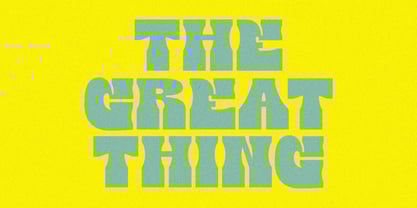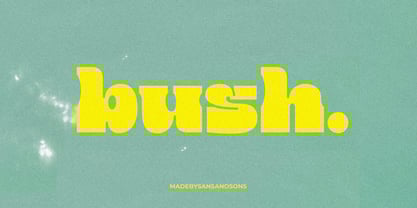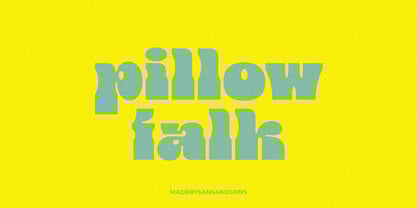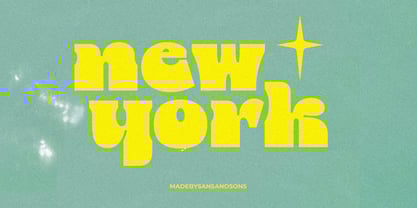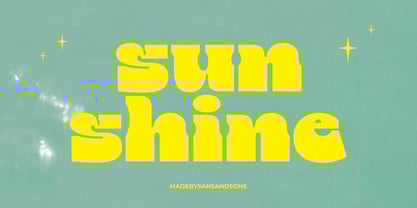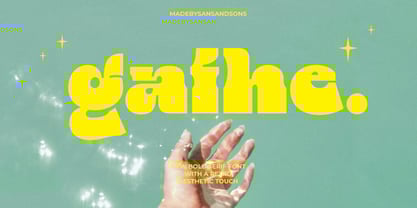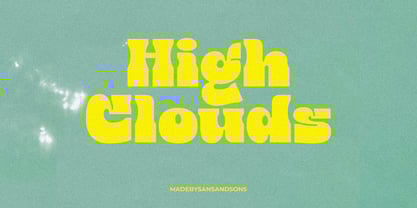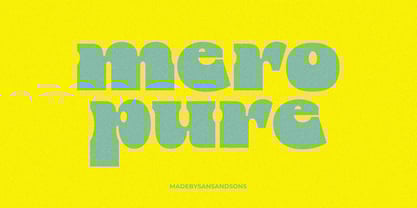
Hello Gathe
by Sans And Sons
The Hello Gathe Font Family was designed by Angga Suwista and published by Sans And Sons. Hello Gathe contains 1 styles. More about this family
Gathe - Made by Sans And Sons
Meet "Gathe" — a bold serif font that mixes retro vibes with modern cool.
With fun curves and standout serifs, "Gathe" adds a unique flair to any project. Perfect for branding, posters, and more, this font brings a timeless, playful touch. Make your designs pop with "Gathe" — where every letter has personality!
Designers: Angga Suwista
Foundry: Sans And Sons